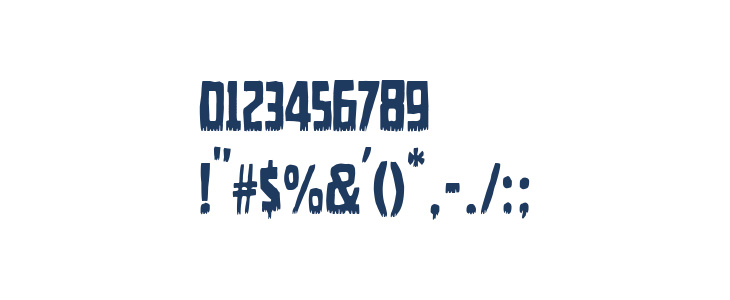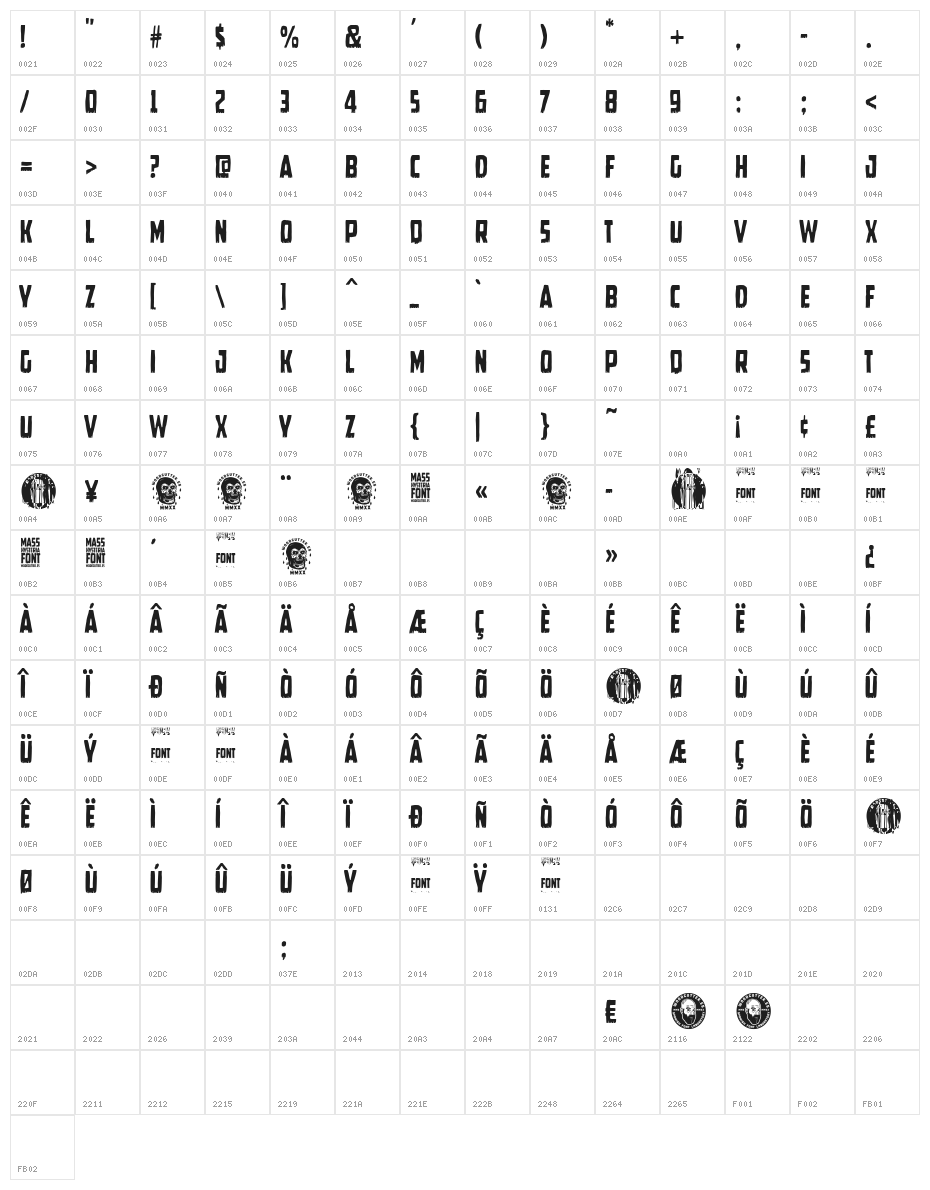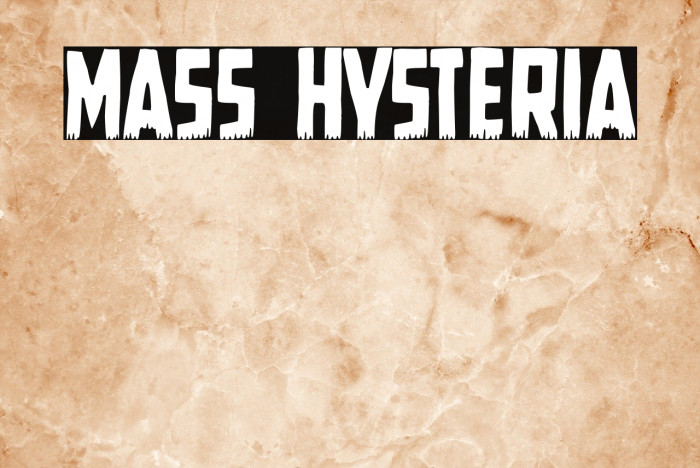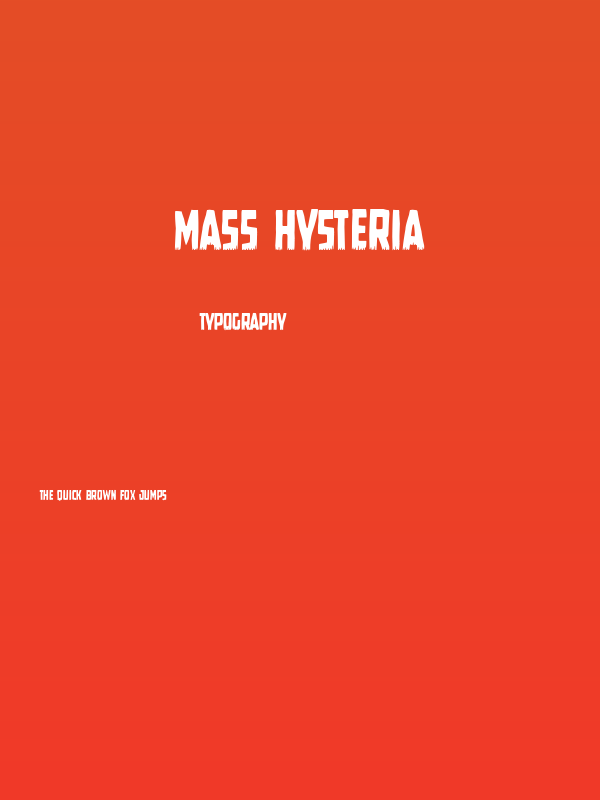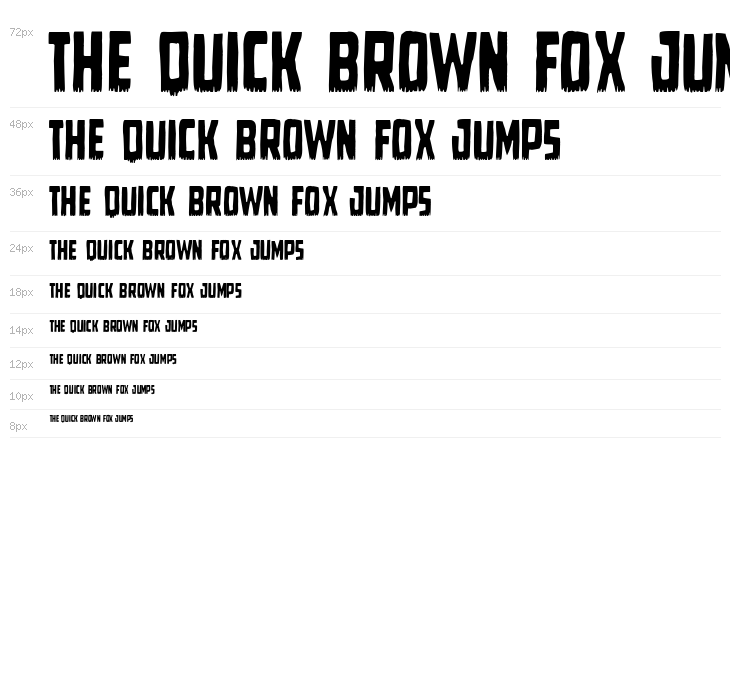
Mass Hysteria Font
Mass Hysteria Description
This font features a bold and dynamic design with a distressed, jagged edge that gives it a raw and energetic appearance. The uppercase letters are prominent and slightly irregular, adding to its edgy and rebellious feel. The numbers and special characters maintain this rugged style, ensuring consistency across all glyphs. The font's unique texture and boldness make it stand out, ideal for projects that require a strong visual impact.
| Use Case | Headlines, Posters, Logos |
| Proposed Projects | Perfect for music album covers, event posters, horror-themed graphics, or any project needing a bold, eye-catching typeface. |